Adelle Sans Arabic in Vice magazine
The Arabic edition of Vice magazine used Adelle Sans Arabic in text, headlines, and menus.
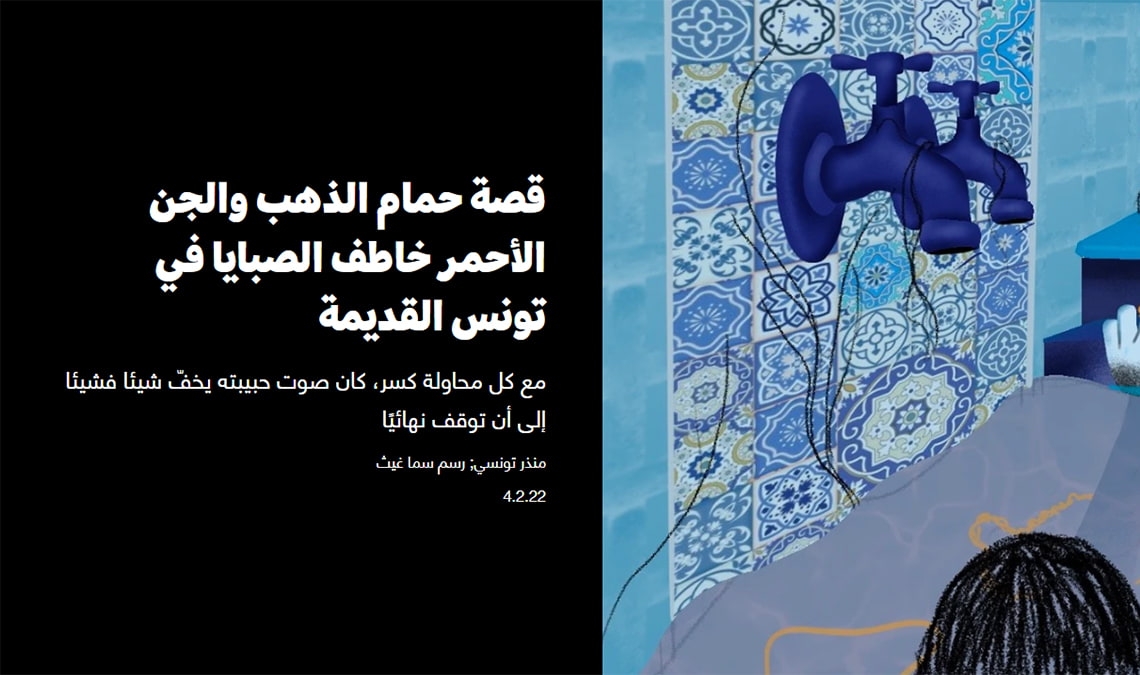
The Arabic edition of Vice magazine used Adelle Sans Arabic in text, headlines, and menus.
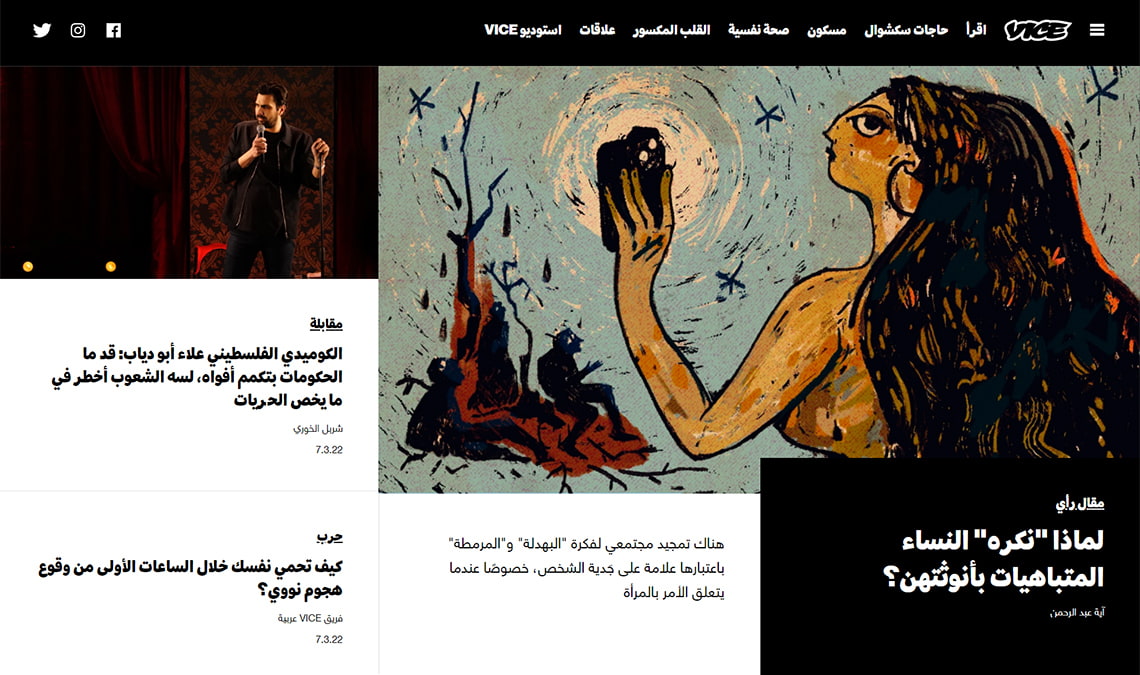
The Arabic edition of Vice magazine used Adelle Sans Arabic throughout the website and social media.
Adelle Sans Arabic is Azza Alameddine’s expansion of the original family’s forms into a versatile tool for countless situations — branding, signage, paragraphs, and advertising. The spirited and graceful Arabic design expands the family’s overall functionality, tone, and global use. As one of the widest ranging multiscript families in our catalogue, Adelle Sans Arabic includes support for Arabic, Farsi, and Latin, as well as a collection of icons specifically designed to mimic the tone and forms of the text.